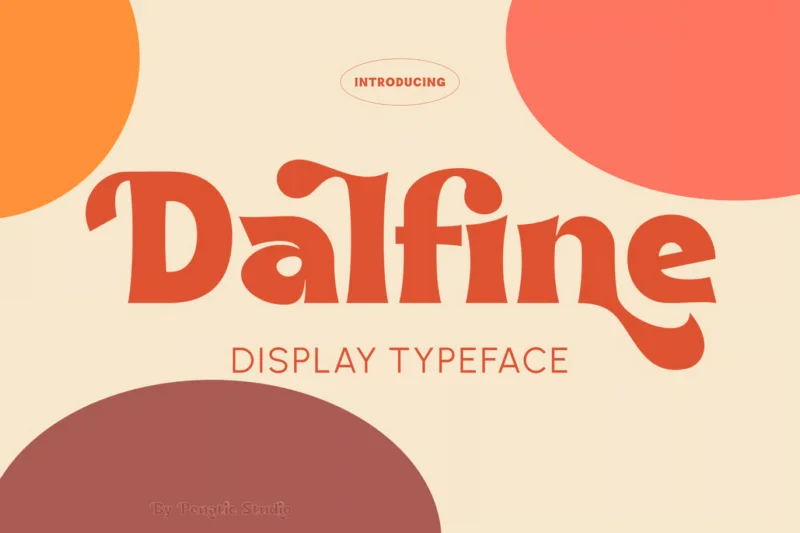
Dalfine – Classic Font
Dalfine is a bold display serif font that’s jarring and captivating. Each letter grabs attention with boldness and boldness. Thick and bold lines create a strong and impressive impression. Perfect for titles, posters or display designs that require great visual appeal.
~ Unique Fonts Ligatures and Alternate